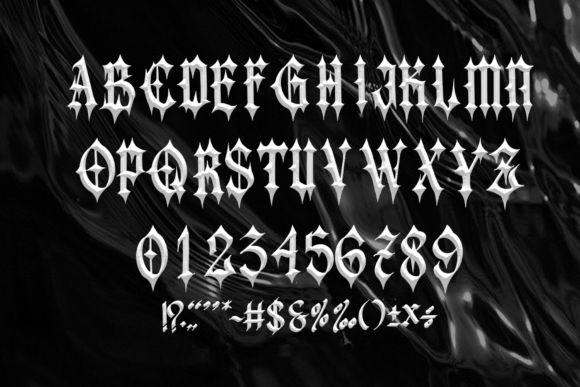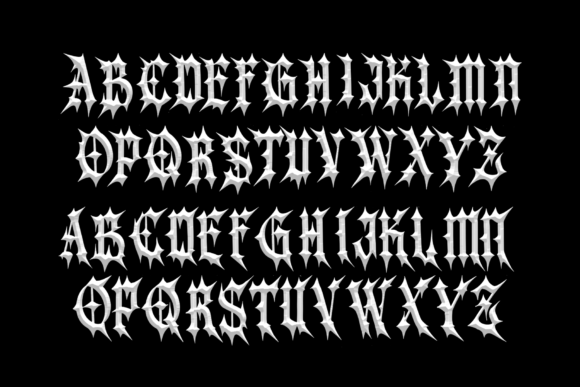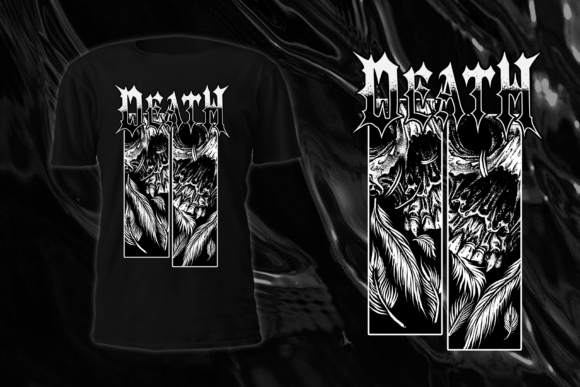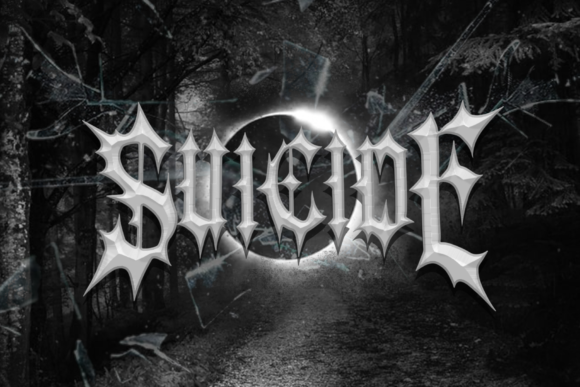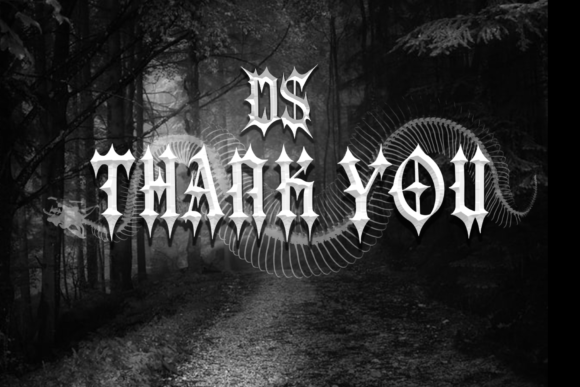
Introduction to Mask Death Font
Mask Death is a thick-lettered and spooky blackletter font.
It is perfectly suitable for any Halloween-related project or crafty idea The only limit is your imagination.
Key Features of Mask Death Font